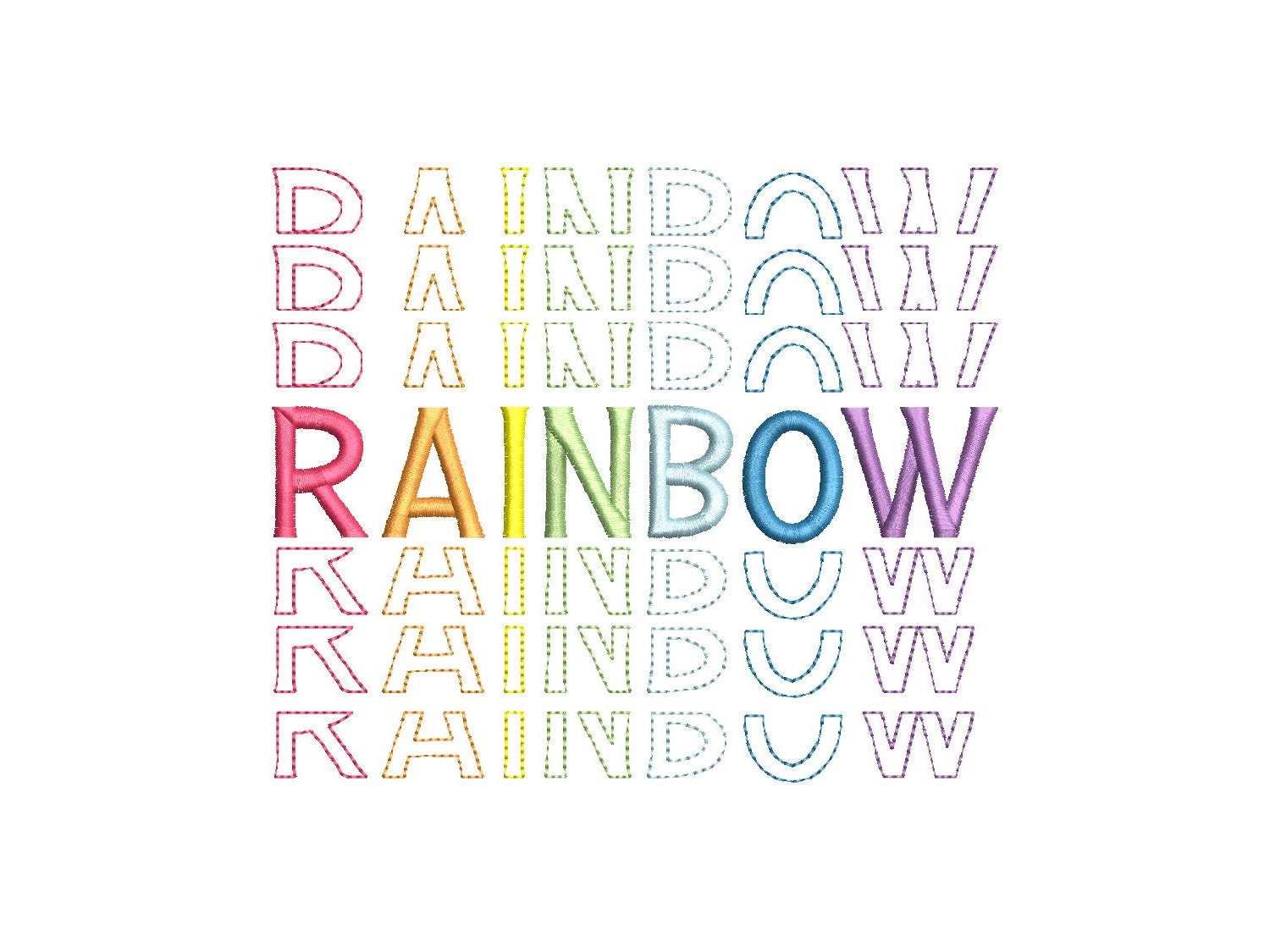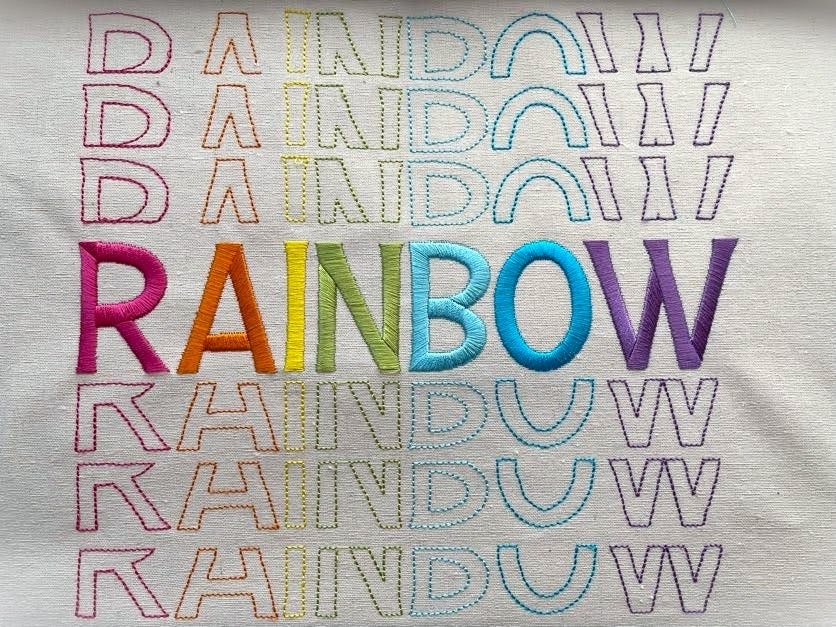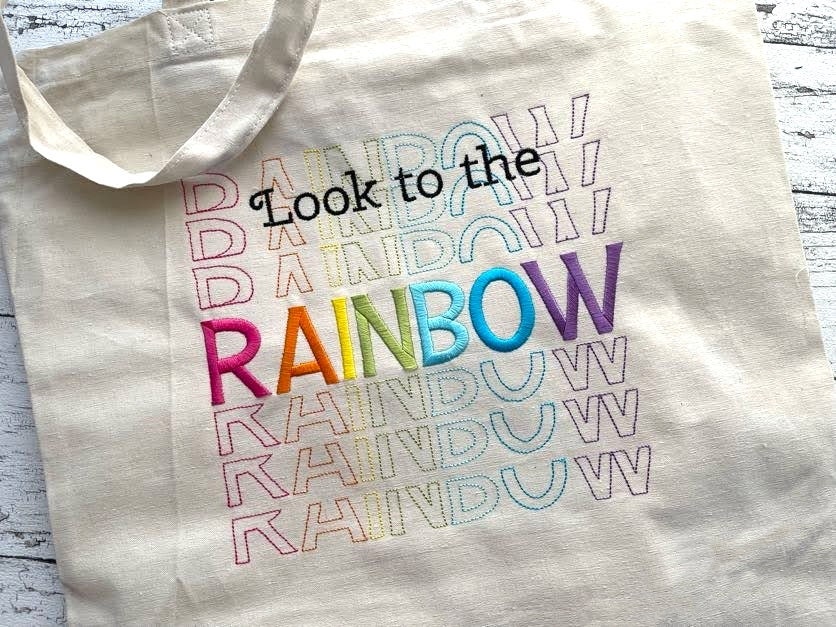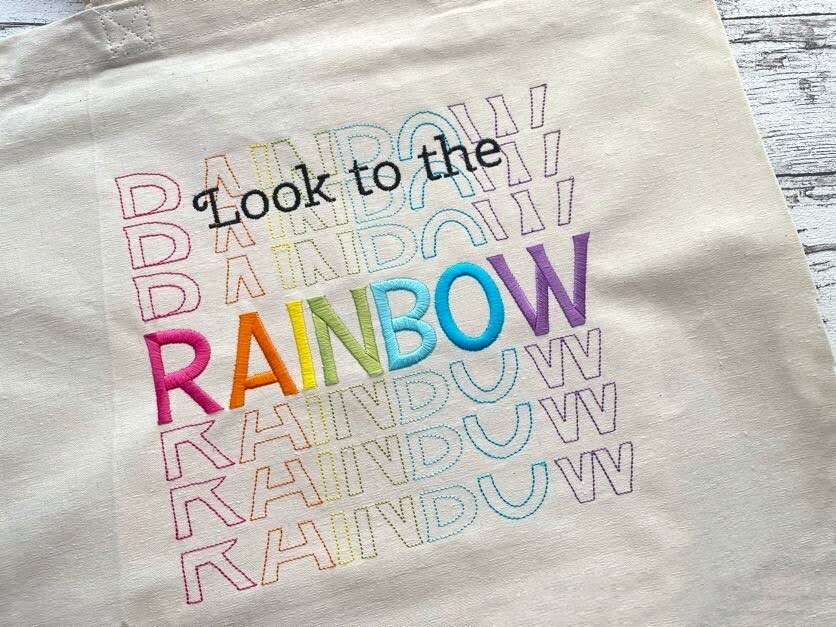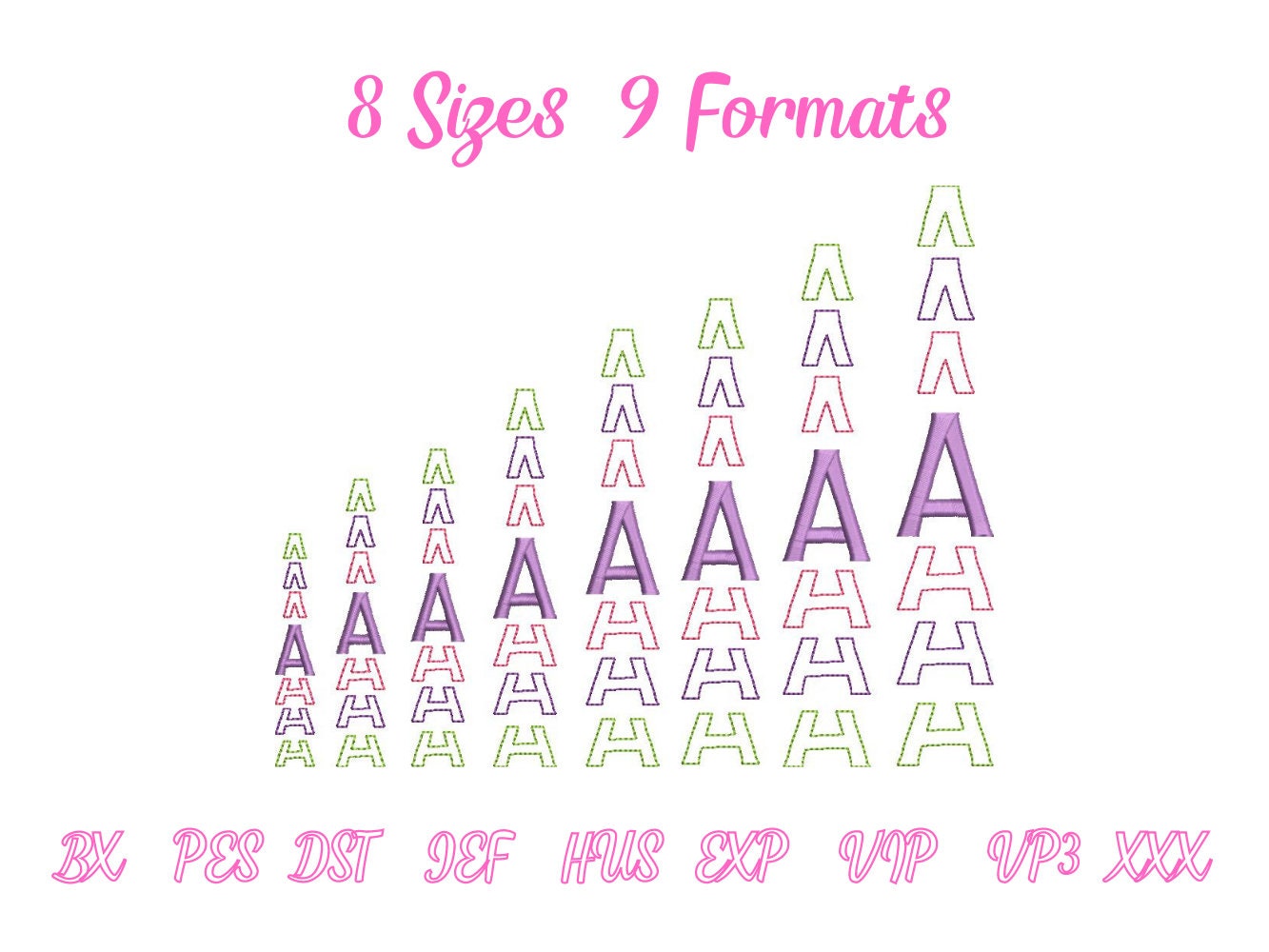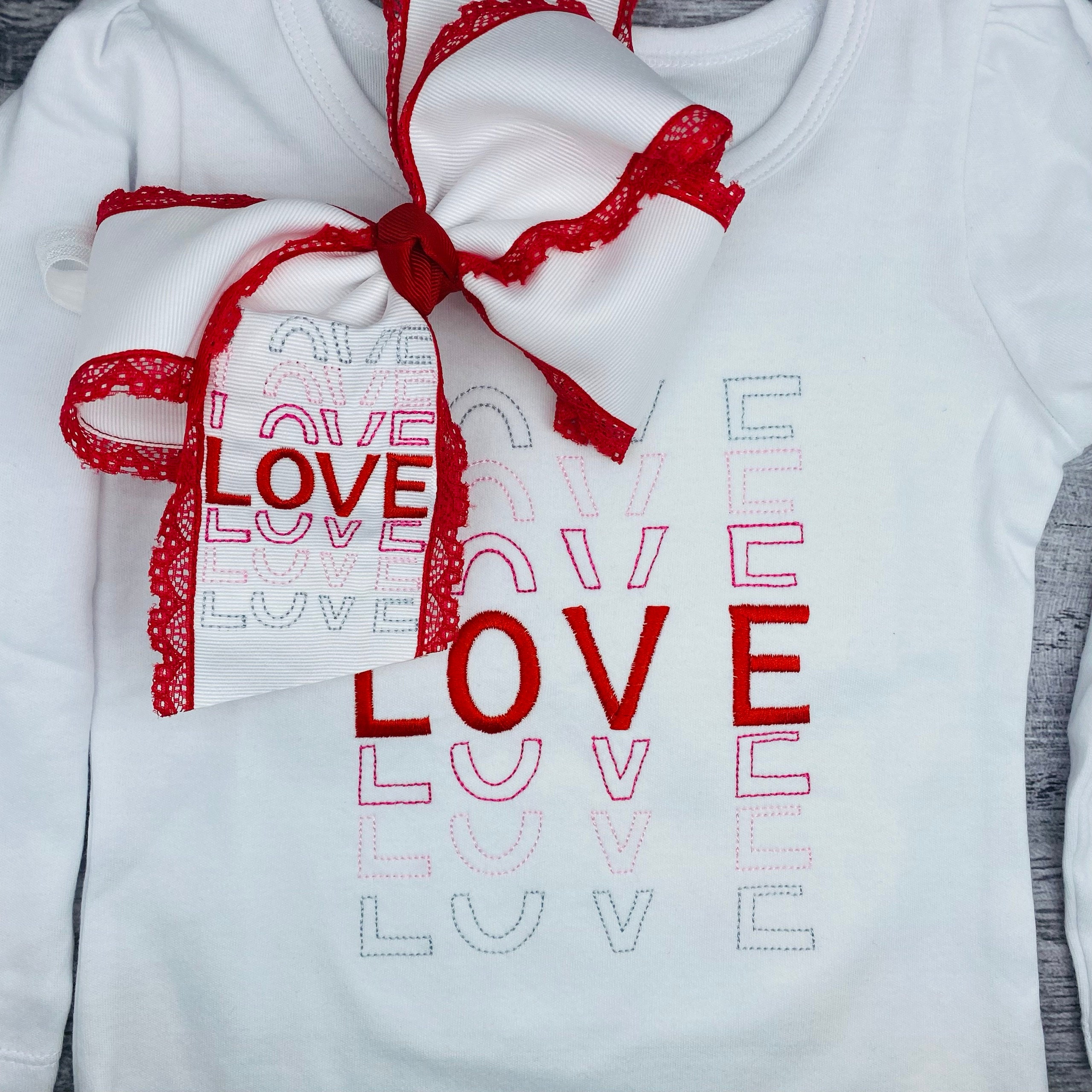
Stacked Font satin stitch and outline trend alphabet letters awesome stacked letters machine embroidery designs in many sizes, BX included
The whole alphabet and numbers
A-Z uppercase and numbers 0-9